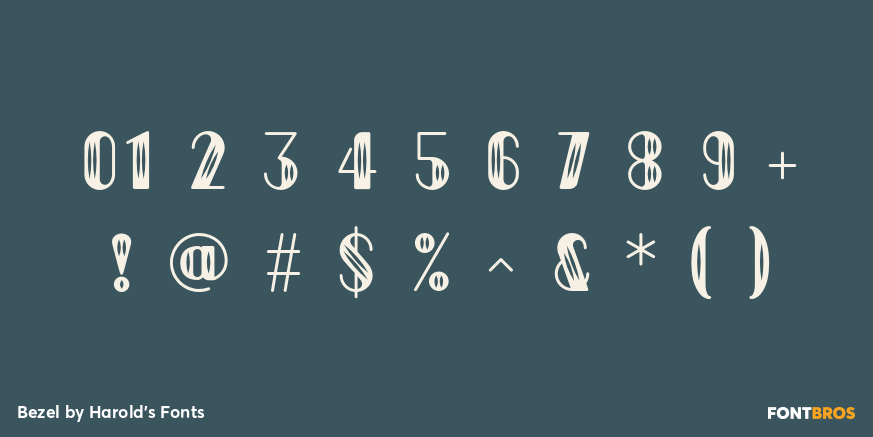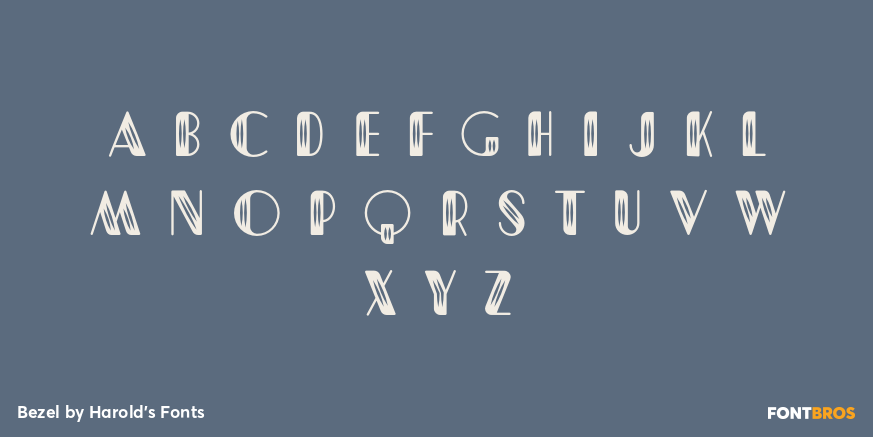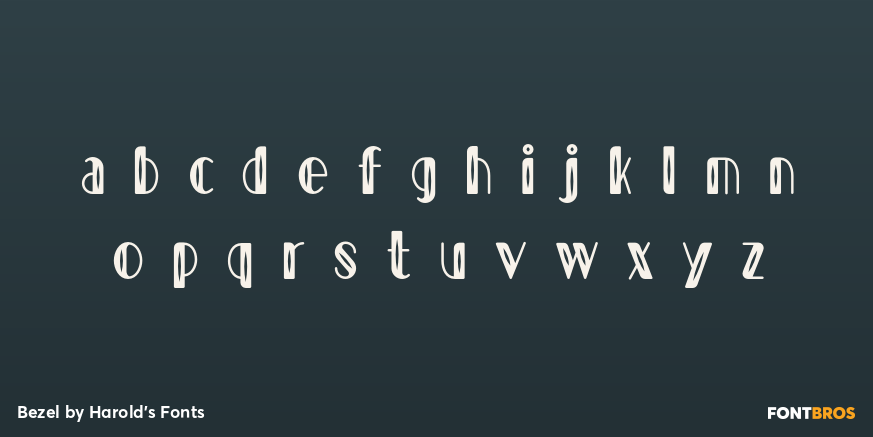
Bezel
Font Family by Harold's Fonts
Bezel is an Art Deco font with a contemporary twist. Bezel starts with geometric forms but adds modern proportions and a sleek curve for a fresh feel. The set includes 4 decorative variations: Black, White, Diamond, and Shimmer.